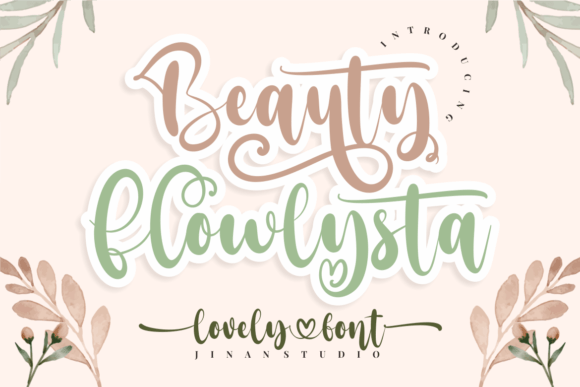
Enter the enchanting world of Beauty Flowlysta, a script font that captivates with its delicate strokes and undeniable charm. Crafted by the talented jinanstd, Beauty Flowlysta is a visual symphony that blends tradition and contemporary flair, making it the perfect choice for those seeking a touch of romance and elegance in their designs.
Unleash your creativity and let Beauty Flowlysta take you on a journey through handwritten bliss. Its smooth curves, meticulously crafted swashes, and impeccable attention to detail create a harmonious balance that elevates any project to new heights. Whether you're designing heartfelt greeting cards, captivating headlines, or enchanting invitations, Beauty Flowlysta promises to infuse your creations with a touch of enchantment.
With Beauty Flowlysta, the possibilities are endless. Its versatility extends far beyond the realm of Christmas cards, inviting you to explore a universe of creative endeavors. Its graceful lines lend themselves effortlessly to branding projects, adding a touch of sophistication to logos, business cards, and promotional materials. Let Beauty Flowlysta be your creative compass, guiding you towards captivating designs that leave a lasting impression.
Embrace the magic of Beauty Flowlysta, a font that speaks to the heart and captivates the imagination. Its PUA encoding ensures seamless access to a treasure trove of glyphs and swashes, empowering you to unleash your creativity without limits. As you delve into the world of Beauty Flowlysta, you'll discover a font that transforms the ordinary into the extraordinary, leaving your audience spellbound by its timeless beauty.